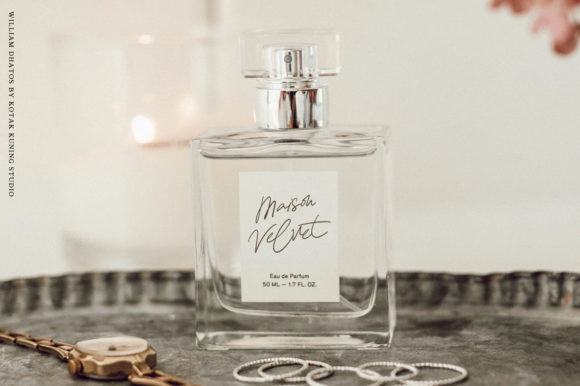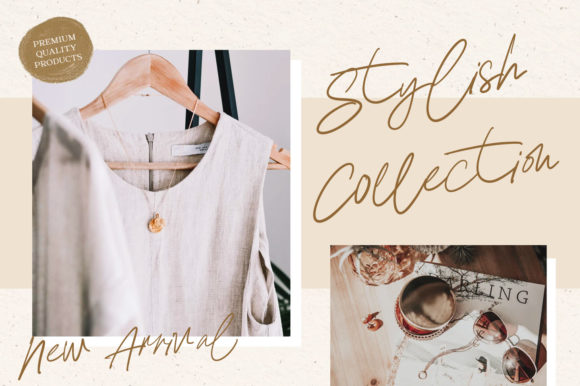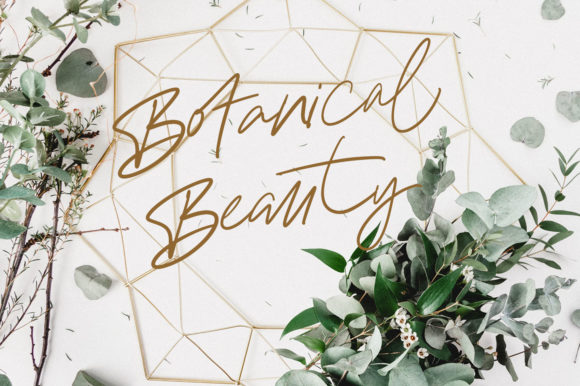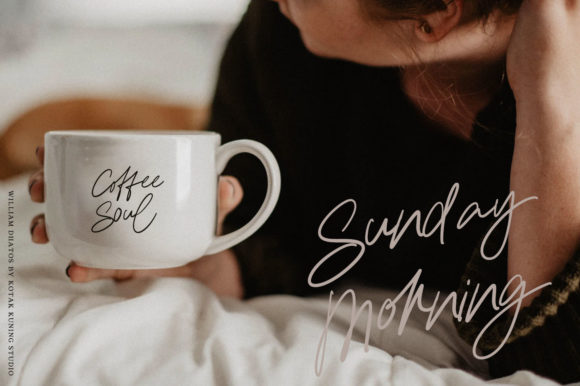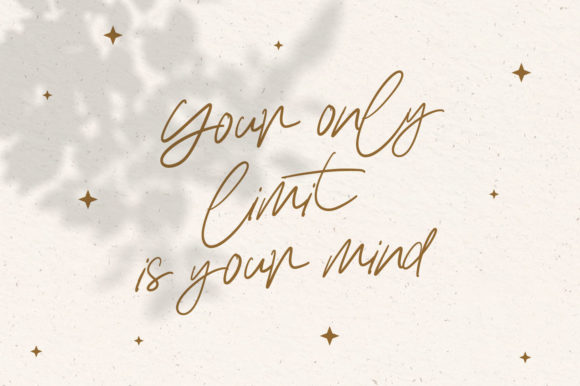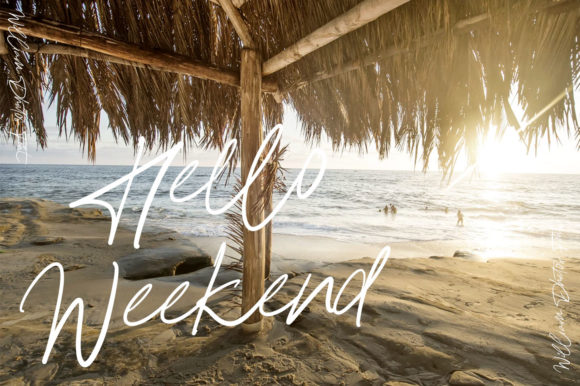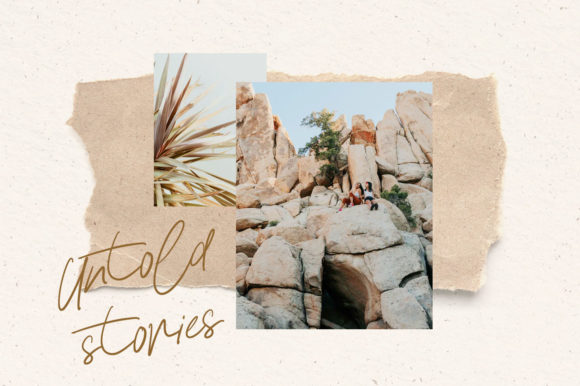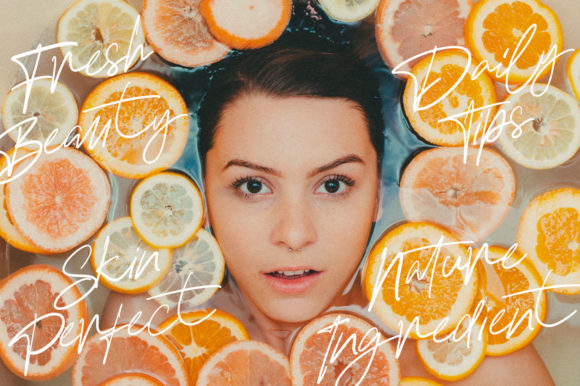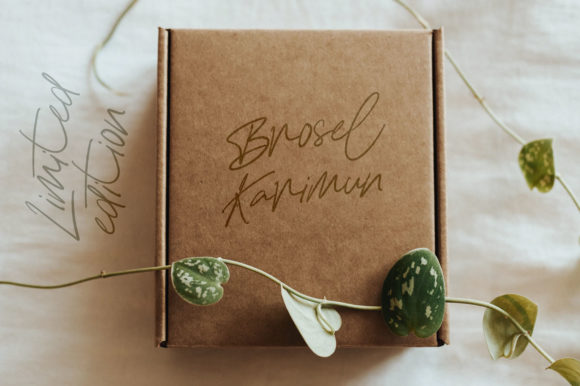
William Dhatos Font
About William Dhatos Font
William Dhatos is inspired by classic typography and brings its own unique style to any design project. Clean and simple, this font is the perfect fit for all of your logos, branding, social media, and crafty DIY projects.